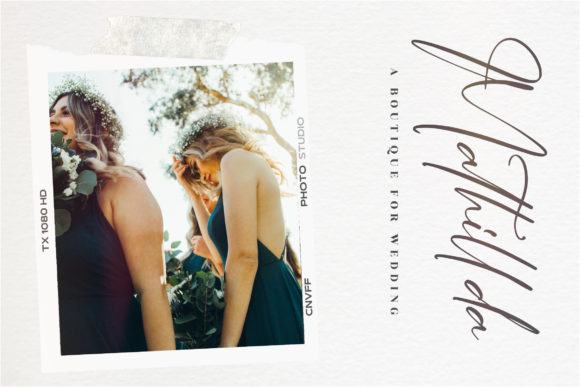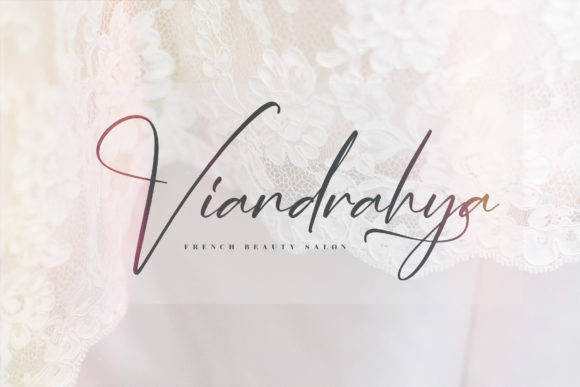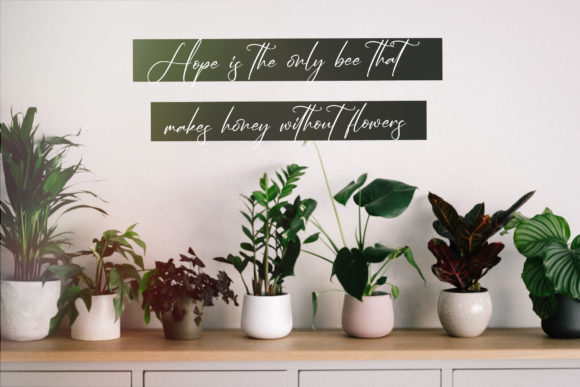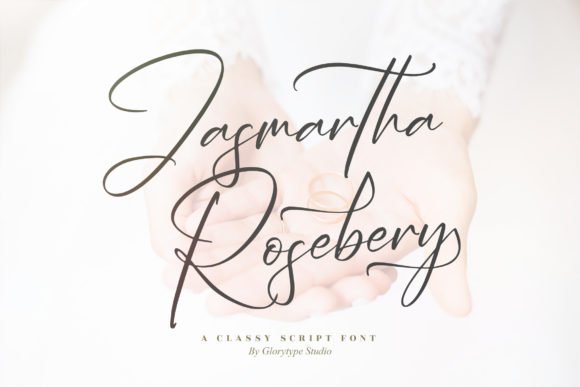
Introduction to Jasmartha Rosebery Font
Jasmartha Rosebery is a classy looking and chic handwritten font.
Whether you’re using it for crafts, digital design, presentations, or making greeting cards, this font will make a great impression Jasmartha Rosebery is PUA encoded which means you can access all of the glyphs and swashes with ease.
Jasmartha Rosebery Font offers exceptional quality and versatility, making it a valuable addition to your design toolkit. Whether you’re creating for personal projects or commercial use, Jasmartha Rosebery Font delivers professional results.